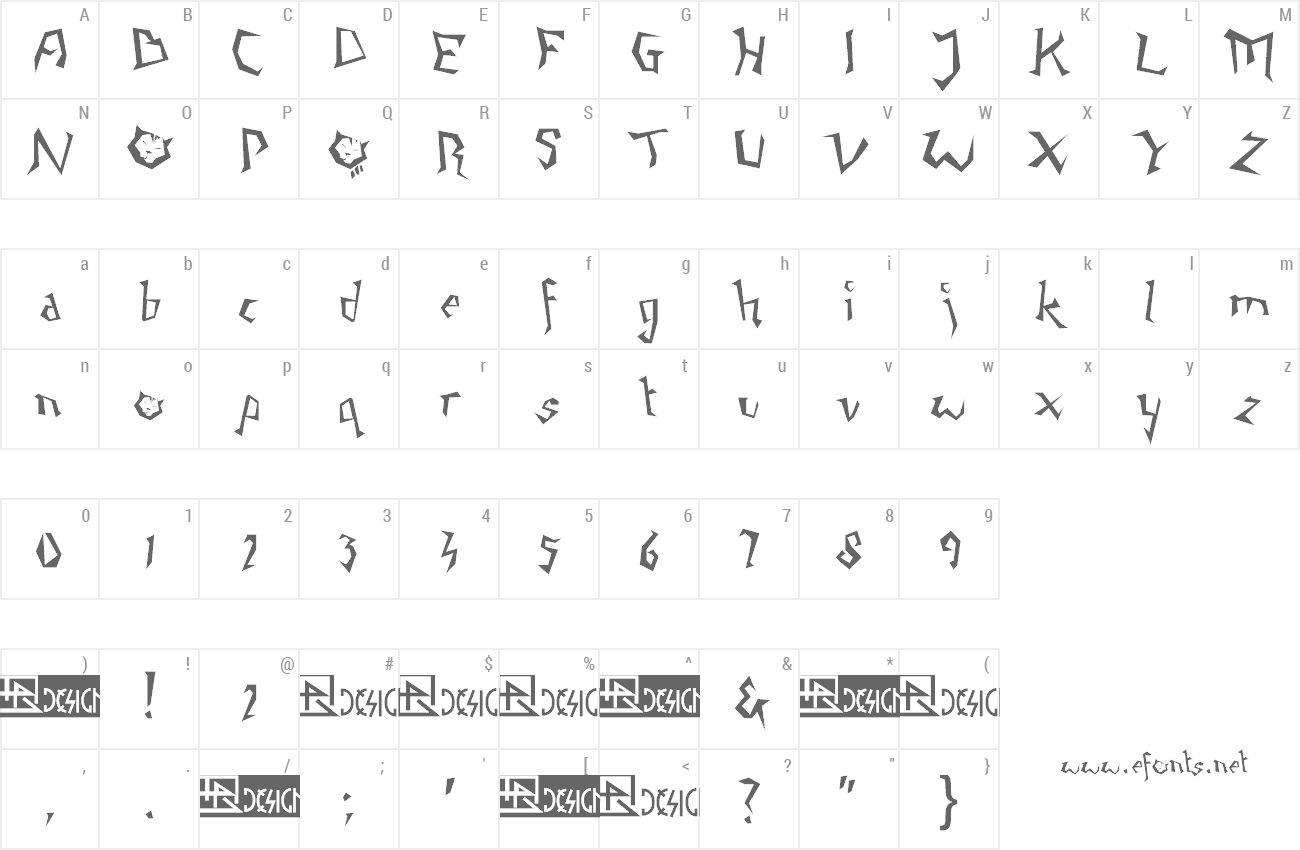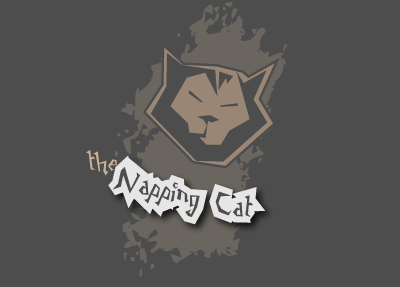
| Font name: | Napping Cat |
| Author: | Runes & Fonts |
| Note by Runes & Fonts | |
NAPPING CAT is a freemouse drawn font in cartoonish style. All capital „O” and small „o” is a face of a nappin cat. The font is free only for personal use! For comercial use and / or If you need extra character contact me at myhandwritings@gmail.com Also feel free to drop me a line in case of questions or feedback.Mostly in case of any problems with the characters, kerning pairs, installation etc. That would also help me in my design work, and would be greatly appreciated! Roland Huse, http://www.rolandhuse.com/fonts.html http://www.myhandwritings.com I hope you like this font! \m/ |